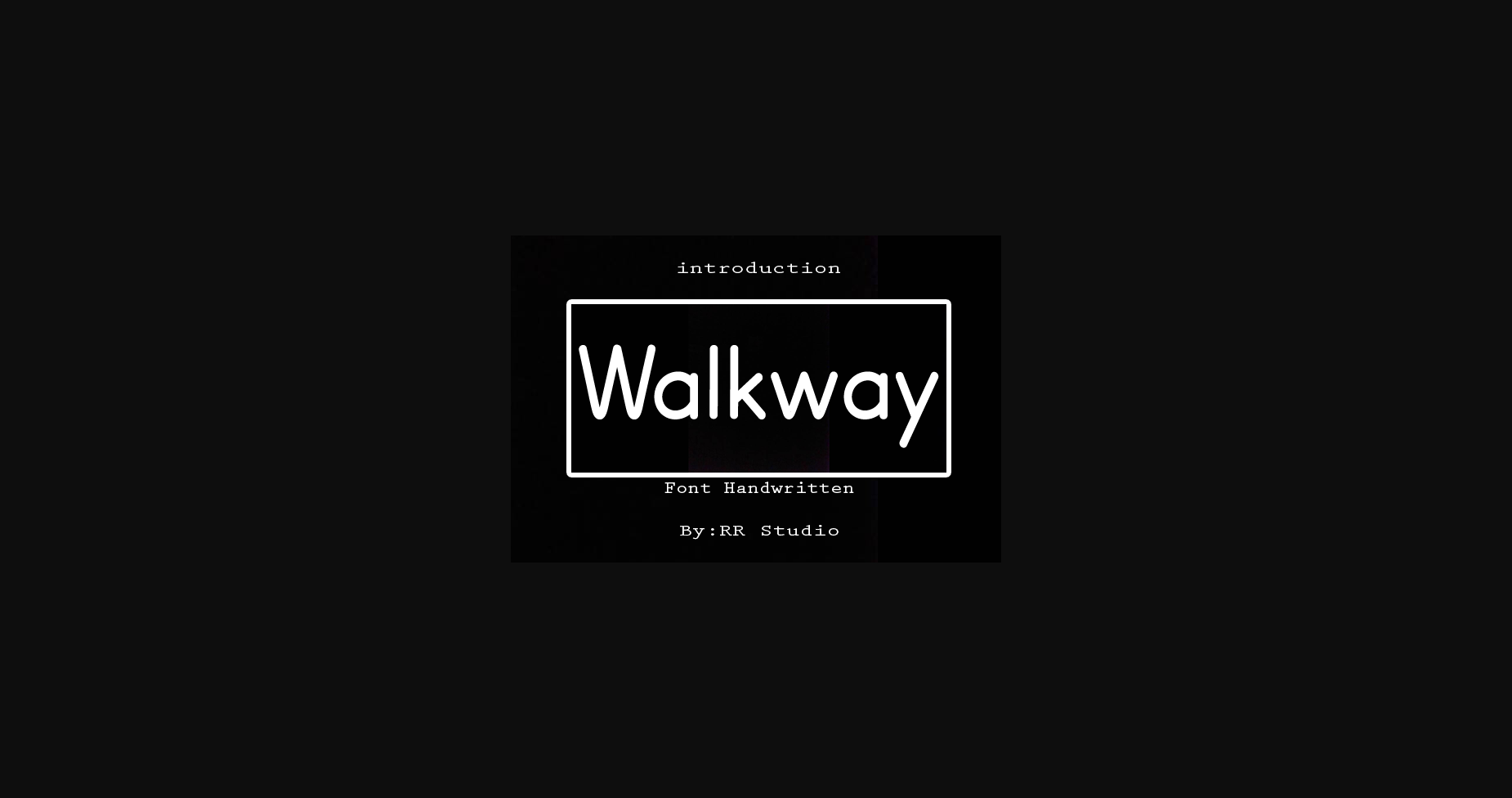
Walkway is a stylish and incredibly elegant sans serif font. It looks stunning on wedding invitations, thank you cards, quotes, greeting cards, logos, business cards and every other design which needs a customized touch.